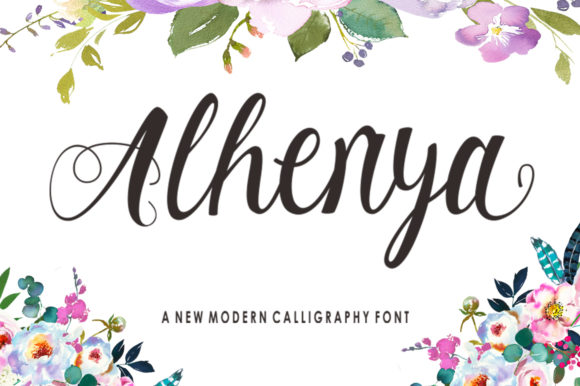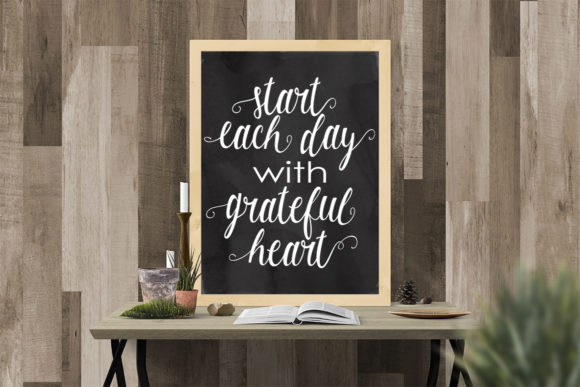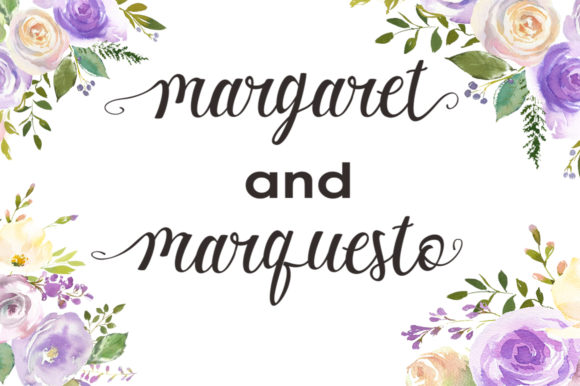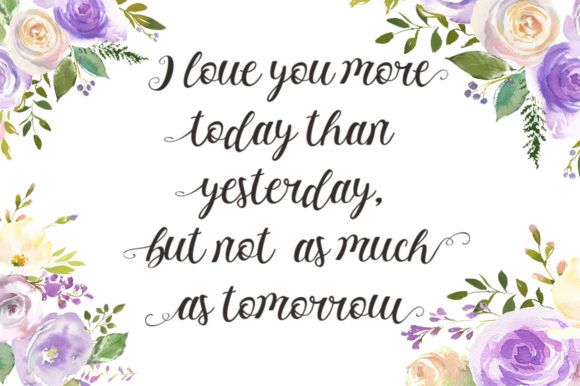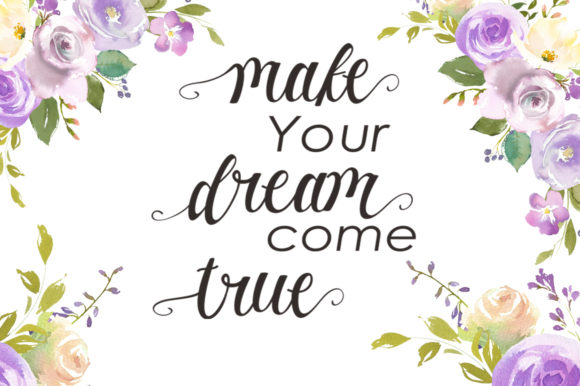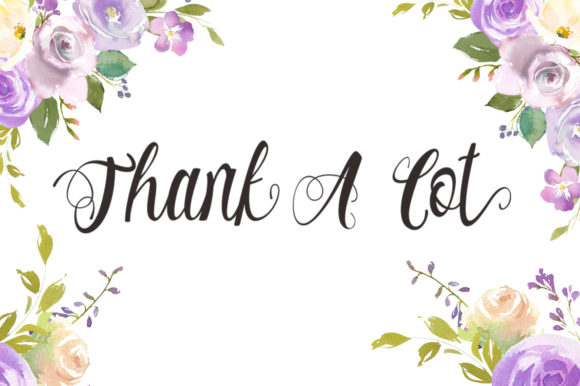
Alhenya Font
About Alhenya Font
Alhenya is a beautiful and elegant modern script font with an undeniable charm. Fall in love with this adorable and sophisticated font, and use it for any design project that needs an authentic touch.